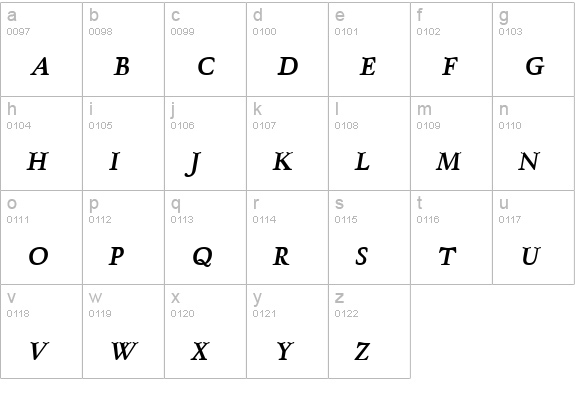
Winthorpe Sc Italic Font Details
Winthorpe Sc Italic is a distinctive, italic variant in the Winthorpe typeface family \xE2\x80\x94 well suited to design and typography projects.
Introducing Winthorpe Sc Italic font, a beautifully designed typeface that exudes elegance and sophistication. With its graceful curves and stylish letterforms, this font is perfect for adding a touch of refinement to any project. The italic style adds a sense of fluidity and movement, making it ideal for conveying a sense of creativity and uniqueness. What's even better is that Winthorpe Sc Italic font is completely free to download at FontsMarket.com! Yes, you read that right - you can elevate your designs with this stunning font without spending a dime. So why wait? Head over to FontsMarket.com today and download Winthorpe Sc Italic font to enhance your projects with its timeless beauty and charm.